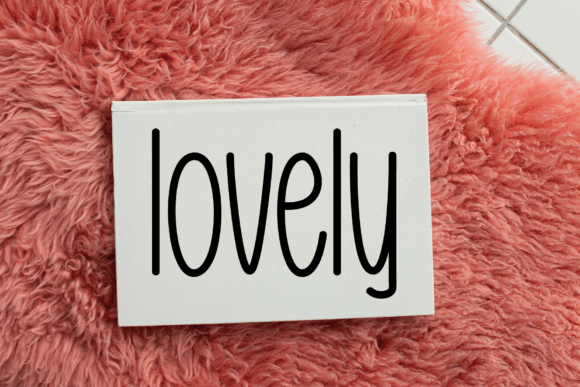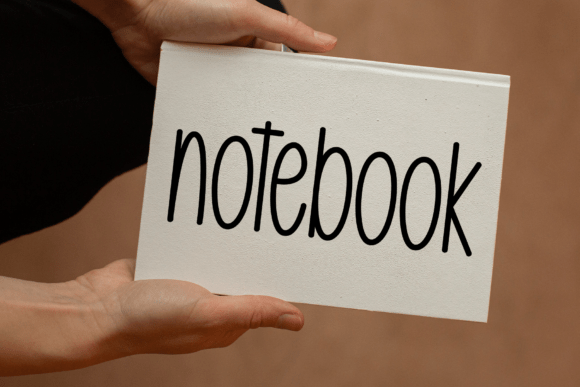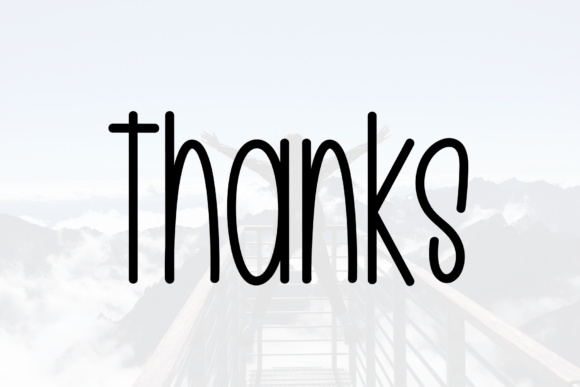
Introducing Blueysea Font: The Ultimate Handwritten Marker Font for Designers and Crafters
Are you tired of using the same old fonts for your designs? Look no further! Blueysea Font is a game-changer for designers and crafters alike. This beautiful handwritten font is designed to mimic the look of a marker, giving your designs a relaxed and sporty feel. In this article, we’ll dive into the features and benefits of Blueysea Font, and explore how you can use it to elevate your designs.
What is Blueysea Font?
Blueysea Font is a unique handwritten font that is designed to look like it was drawn with a marker. The font has a distinctive, casual feel that is perfect for designs that require a relaxed and sporty vibe. Whether you’re creating branding materials, logos, wedding supplies, greeting cards, or marketing promotions, Blueysea Font is the perfect choice.
Key Features of Blueysea Font
- Handwritten with a marker feel: Blueysea Font has a distinctive handwritten feel that is achieved through its marker-like strokes and imperfections.
- Relaxed and sporty: The font has a casual, laid-back feel that is perfect for designs that require a sporty and relaxed vibe.
- Luxurious and elegant: Despite its casual feel, Blueysea Font still manages to convey a sense of luxury and elegance, making it perfect for high-end designs.
- Versatile: Blueysea Font can be used for a wide range of designs, from branding and logos to wedding supplies and marketing promotions.
Benefits of Using Blueysea Font
- Adds a personal touch: Blueysea Font’s handwritten feel adds a personal touch to your designs, making them stand out from the crowd.
- Creates a consistent brand image: By using Blueysea Font across all your designs, you can create a consistent brand image that is instantly recognizable.
- Perfect for creative projects: Blueysea Font is perfect for creative projects, such as wedding supplies, greeting cards, and lookbooks.
- Easy to read: Despite its casual feel, Blueysea Font is still easy to read, making it perfect for designs that require a clear and concise message.
How to Use Blueysea Font
- Branding and logos: Use Blueysea Font to create a unique and recognizable brand image.
- Wedding supplies: Add a touch of elegance and sophistication to your wedding supplies, such as invitations and programs.
- Greeting cards: Create beautiful and heartfelt greeting cards that stand out from the crowd.
- Marketing promotions: Use Blueysea Font to add a touch of personality to your marketing promotions, such as flyers and brochures.
- Lookbooks: Create stunning lookbooks that showcase your products in a unique and stylish way.
Tips and Tricks for Using Blueysea Font
- Experiment with different colors: Blueysea Font looks great in a range of colors, so don’t be afraid to experiment and find the perfect hue for your design.
- Use it with other fonts: Blueysea Font pairs well with other fonts, so try combining it with a sans-serif font for a stylish contrast.
- Play with texture and patterns: Add texture and patterns to your design to give it a unique and eye-catching look.
In conclusion, Blueysea Font is a versatile and stylish handwritten font that is perfect for designers and crafters alike. With its relaxed and sporty feel, luxurious and elegant vibe, and wide range of uses, Blueysea Font is a must-have for any designer looking to elevate their designs. So why wait? Download Blueysea Font today and start creating stunning designs that stand out from the crowd!